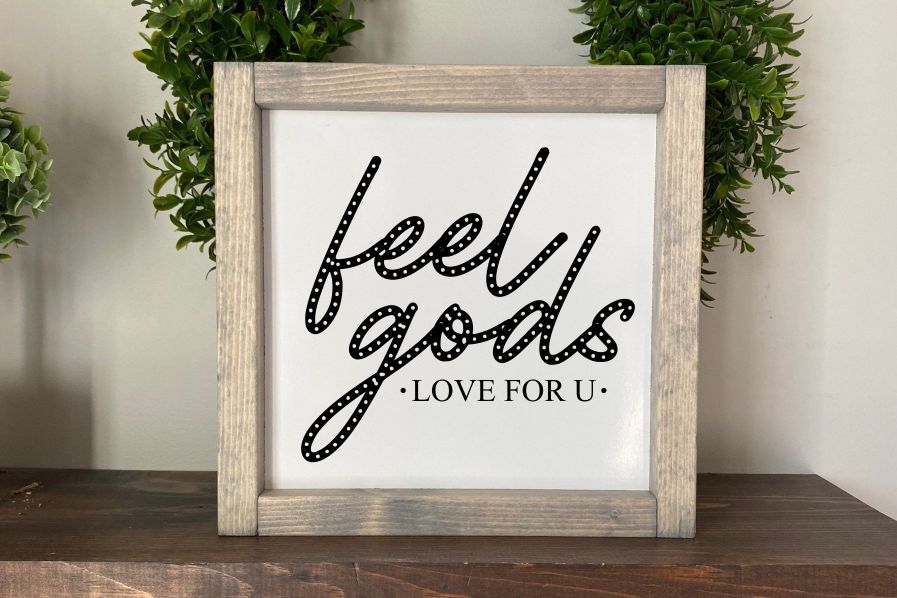
Moomeecoco Font
Moomeecoco Handwritten Font
It’s A Script Dotted Line Font. Moomeecoco is perfect for product packaging, branding project, megazine, social media, wedding, or just used to express words above the background. This font includes OTF&TTF&Woff, Moomeecoco also multilingual support.